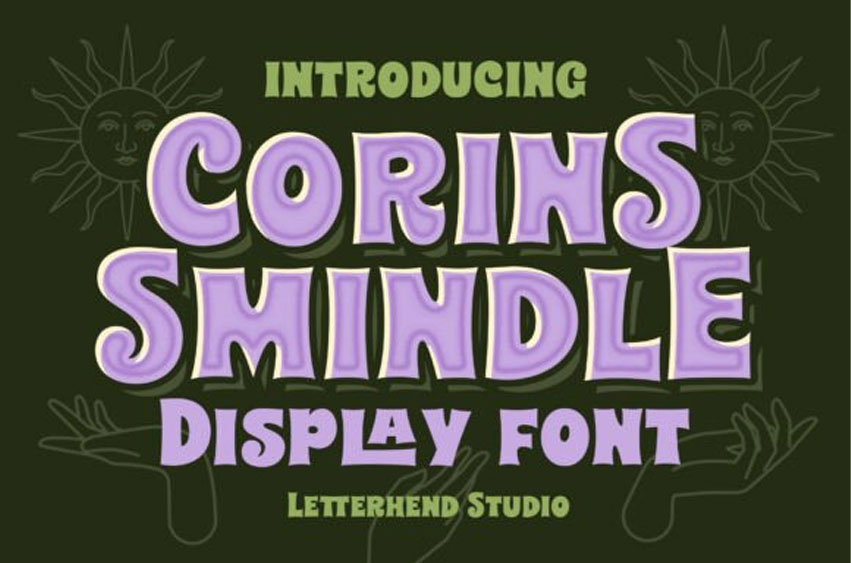
Corins Smindle Font
Corins Smindle Font is a groovy, mystical display font with chunky retro curves and a soft, hand-drawn charm that feels straight out of a 70s psychedelic poster.
Step into a world of retro charm and mystical energy with Corins Smindle, a bold display font that radiates a funky, psychedelic personality. The Corins Smindle typeface is characterized by its thick, curvaceous forms and a distinct “bubbled” aesthetic that feels plucked straight from a 1970s concert poster.
This Corins Smindle font features a playful layered effect and soft, wavy silhouettes that make every word feel like it is vibrating with life and magic.It is the ultimate choice for creative brand identities, vintage-inspired apparel, and mystical product packaging like tarot decks or artisanal candles.
The Corins Smindle display style thrives in high-energy environments, offering a hand-drawn, artisanal look that pairs perfectly with sun-and-moon motifs and earthy color palettes.
By using this typeface, you invite a sense of nostalgia and whimsical wonder into your designs, ensuring your message is delivered with maximum character and groovy flair.